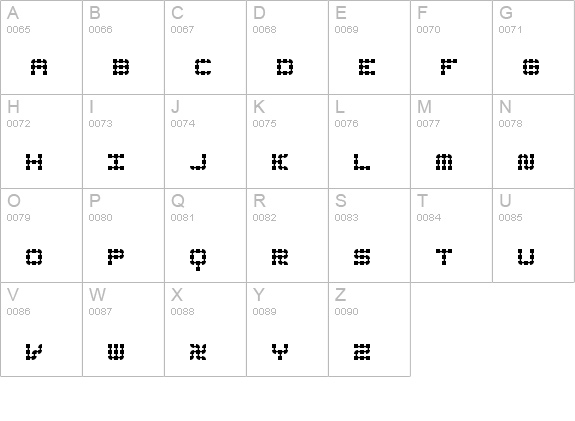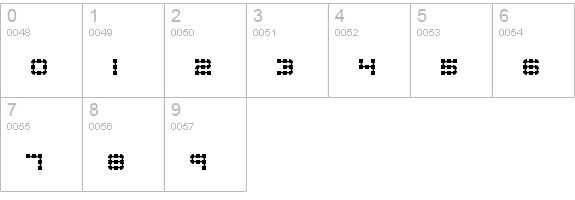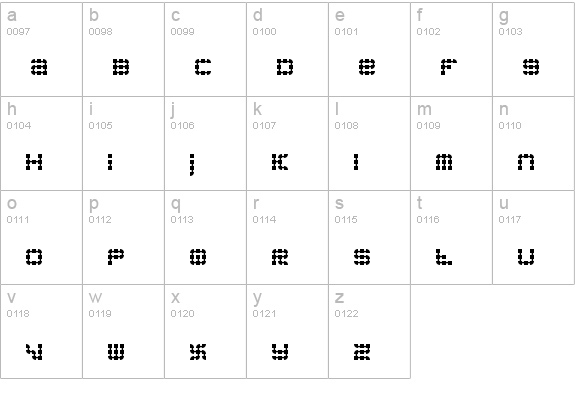
Konector BRK is a modern and stylish font that exudes sophistication and elegance. With its sleek lines and distinct letterforms, this font is perfect for a wide range of design projects, from branding to editorial design. The versatility of Konector BRK makes it a must-have in any designer's toolkit. What sets Konector BRK apart is not just its aesthetic appeal, but also the fact that it is available for free download at FontsMarket.com. This means that you can easily access this beautiful font and use it in your projects without any cost. Whether you are working on a personal project or a client's design, Konector BRK is sure to elevate your work and make a lasting impression. Download Konector BRK today and add a touch of sophistication to your designs.